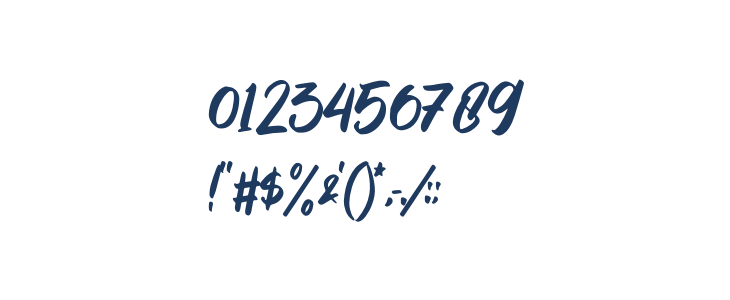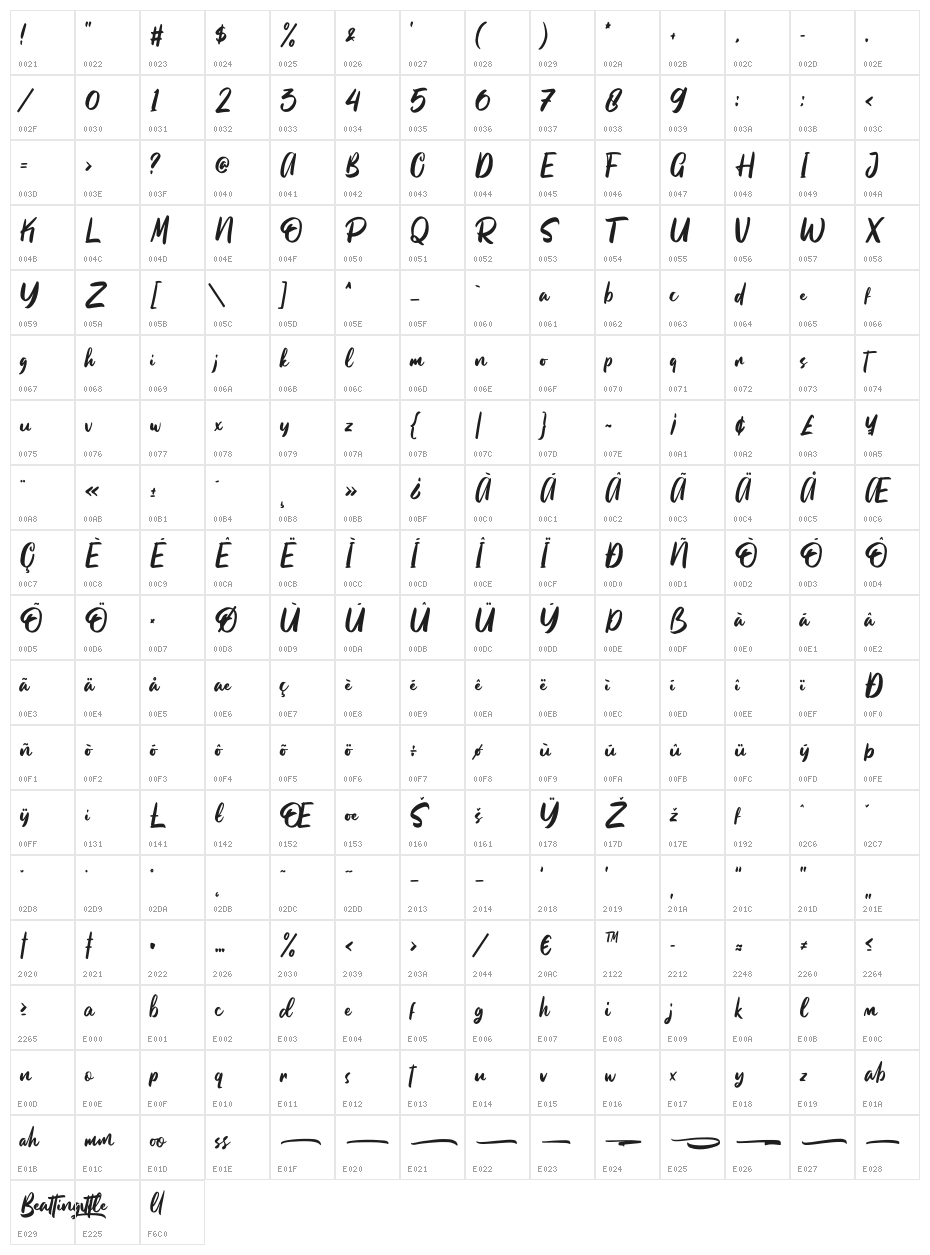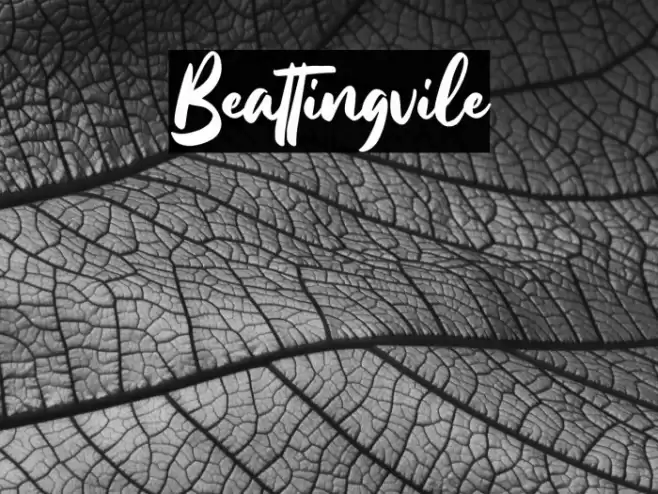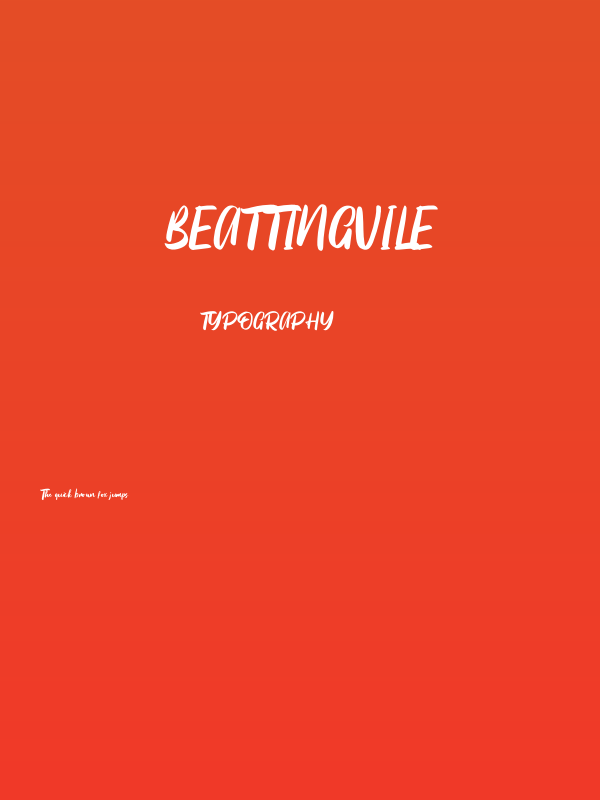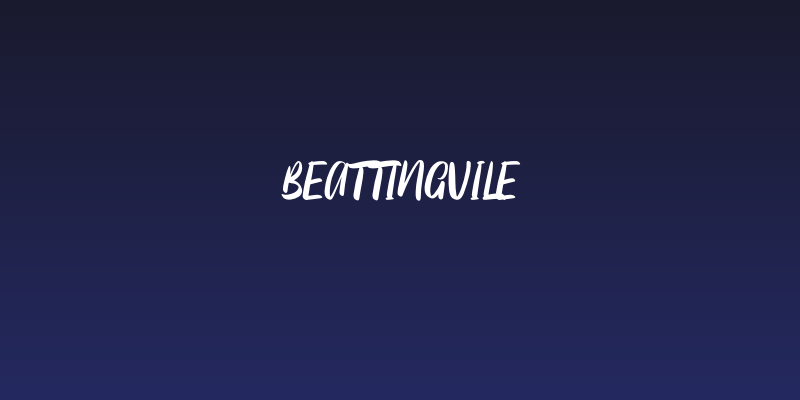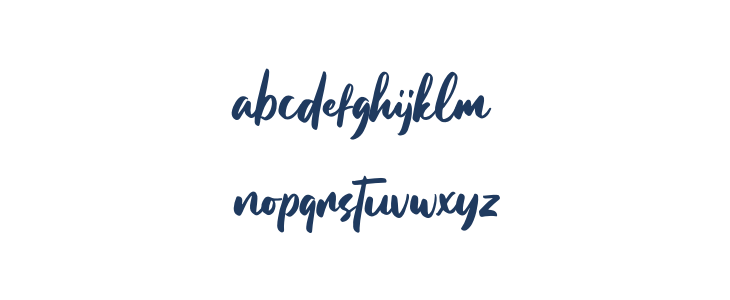
Beattingvile Font
Beattingvile Description
This font features a bold and expressive script style, characterized by its fluid and dynamic strokes. The uppercase letters are prominent and slightly slanted, giving a sense of movement and energy. The lowercase letters maintain a cohesive flow, with some characters connecting seamlessly. The numerals are bold and consistent with the overall style, ensuring readability while maintaining the font's artistic flair. Special characters are designed with the same attention to detail, integrating smoothly into the font's aesthetic. This font is ideal for projects that require a personal touch or a creative edge.